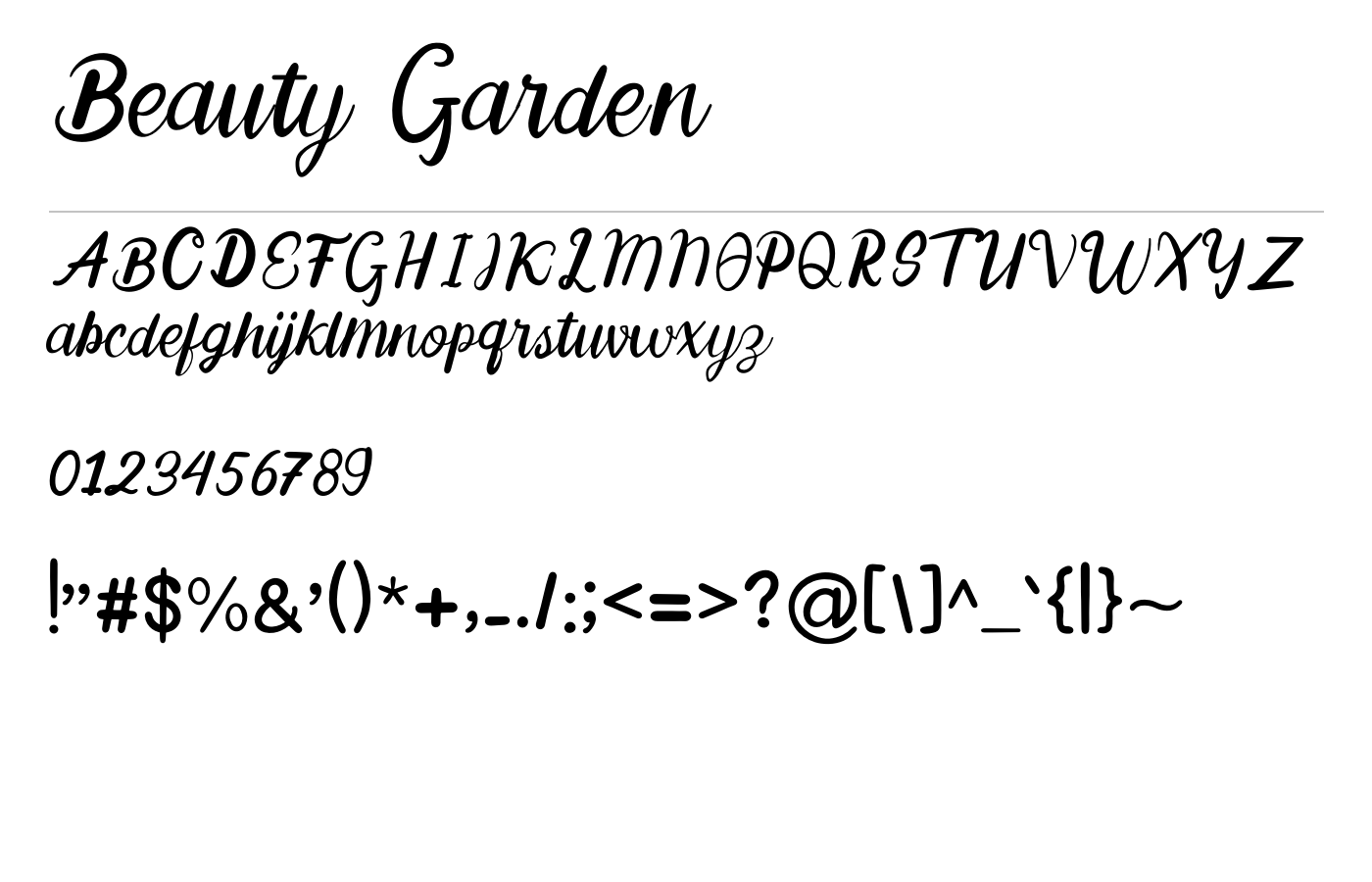
Beauty Garden is a graceful script font with elegant, flowing letterforms that evoke a handwritten feel. Its moderate contrast and smooth curves make it perfect for projects needing a touch of sophistication and warmth, such as invitations, branding, and feminine lifestyle designs. This font works well for headlines and decorative text where a stylish yet approachable personality is desired.
Beauty Garden Font
About Beauty Garden Font